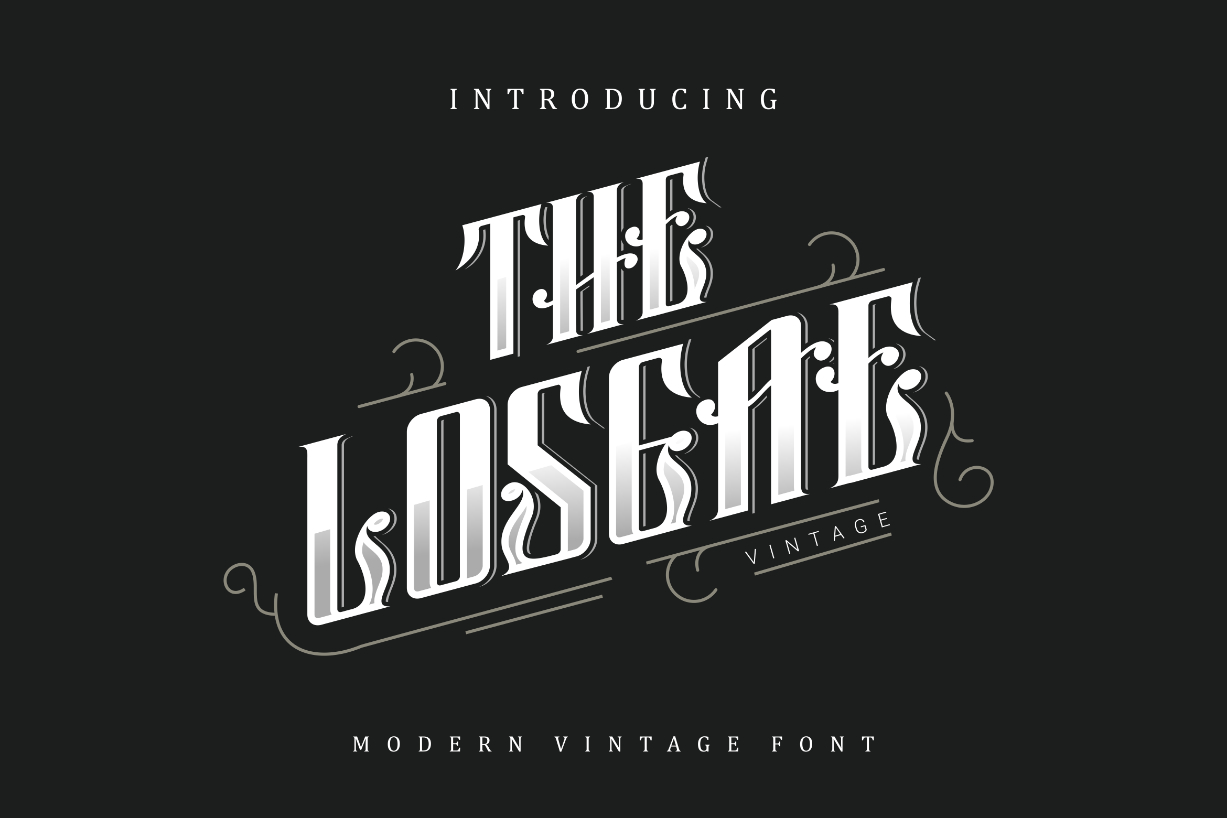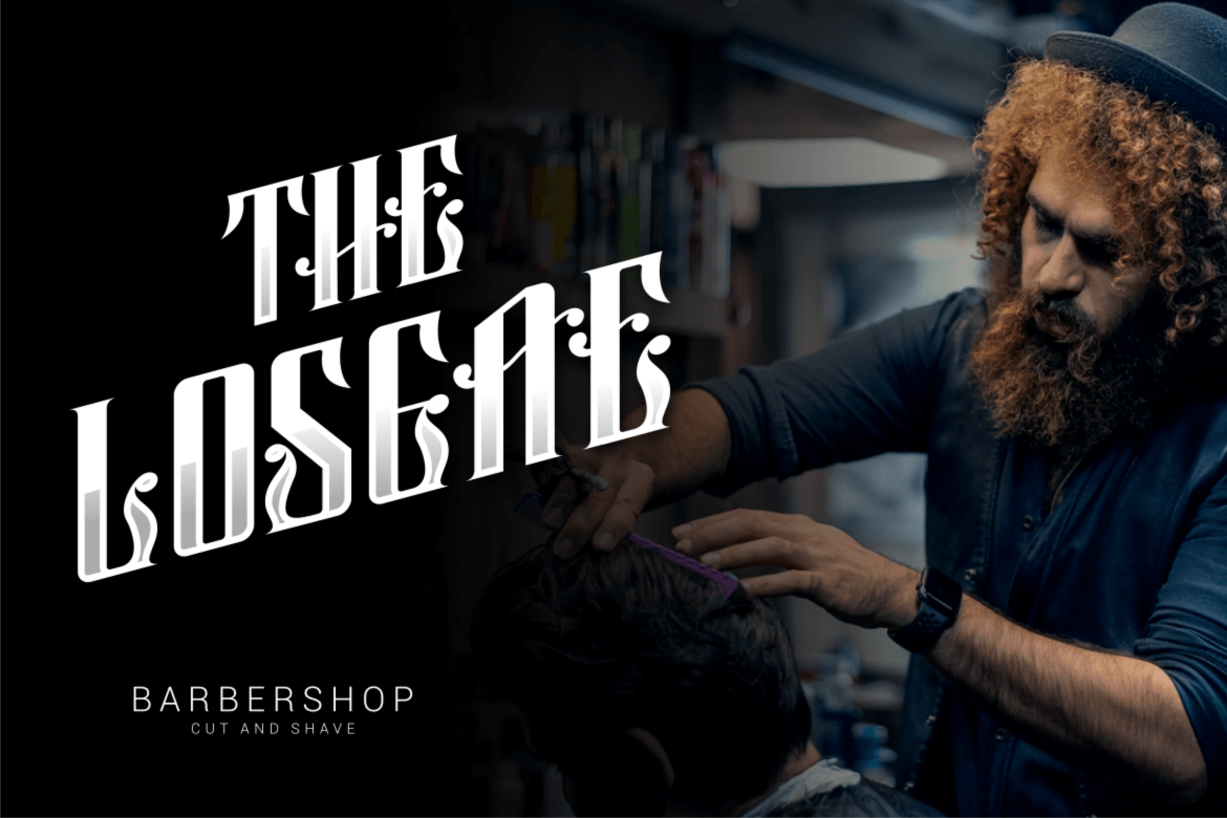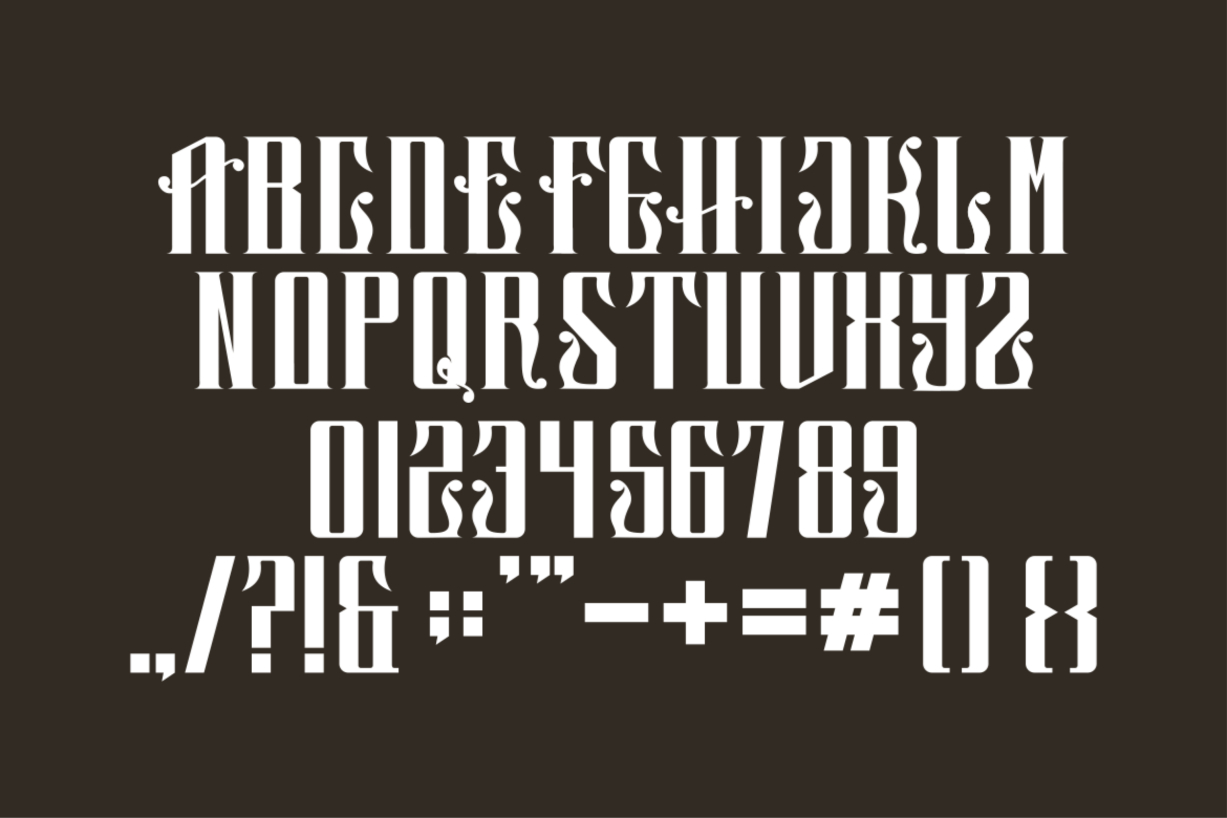
The Losgae Font
About The Losgae Font
The Losgae is a bold and authentic blackletter font suitable for any branding project like logo, t-shirt printing, export, and many more. It looks outstanding in a wide range of contexts.